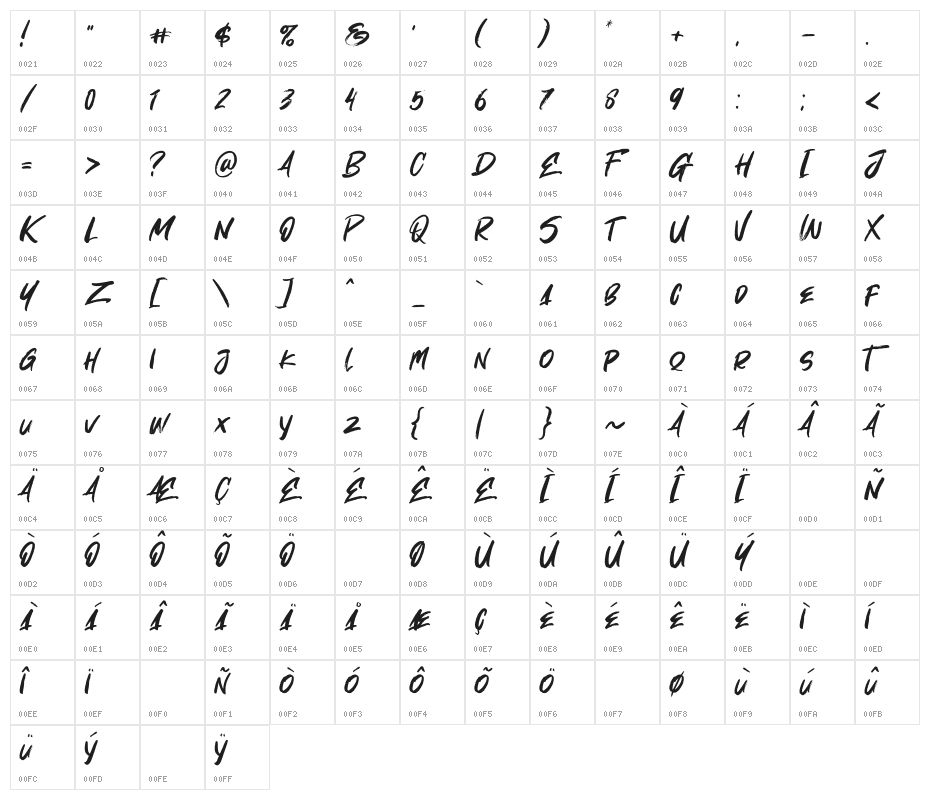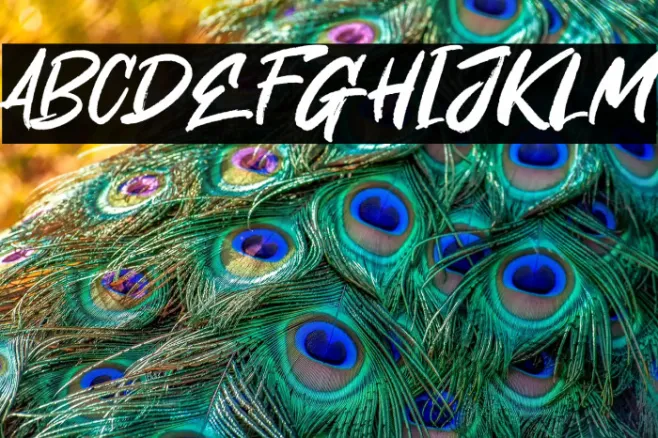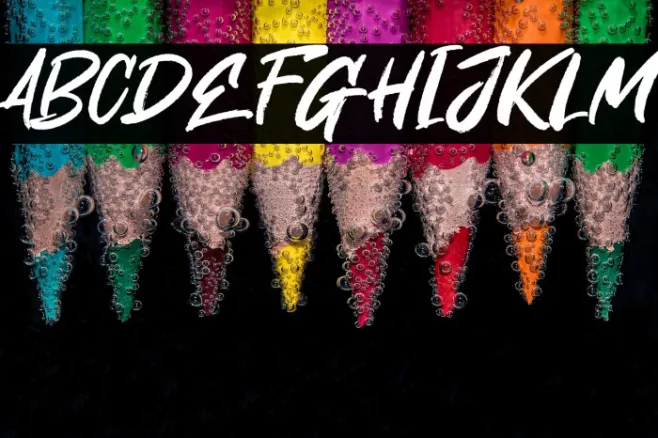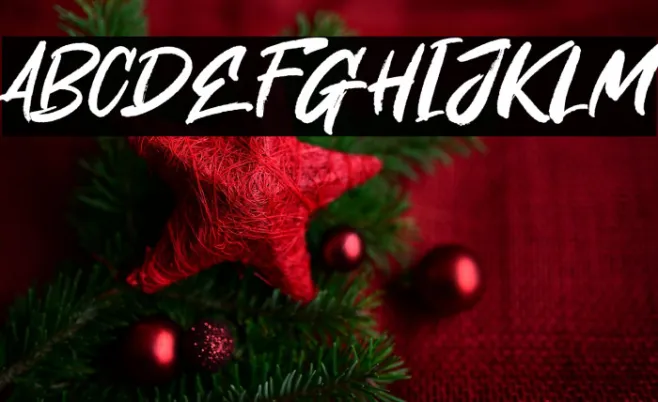
Oh Now! Font
Oh Now! Description
This font exudes a bold and energetic style, characterized by its brush-like strokes and dynamic movement. The letters have a hand-painted appearance, with varying thicknesses that add a sense of spontaneity and artistic flair. The uppercase and lowercase letters maintain a consistent flow, while the numbers and special characters complement the overall aesthetic. The font's expressive nature makes it ideal for projects that require a personal touch or a statement-making design.
| Proposed Projects | Perfect for branding, posters, album covers, and creative projects that require a bold, artistic touch. |